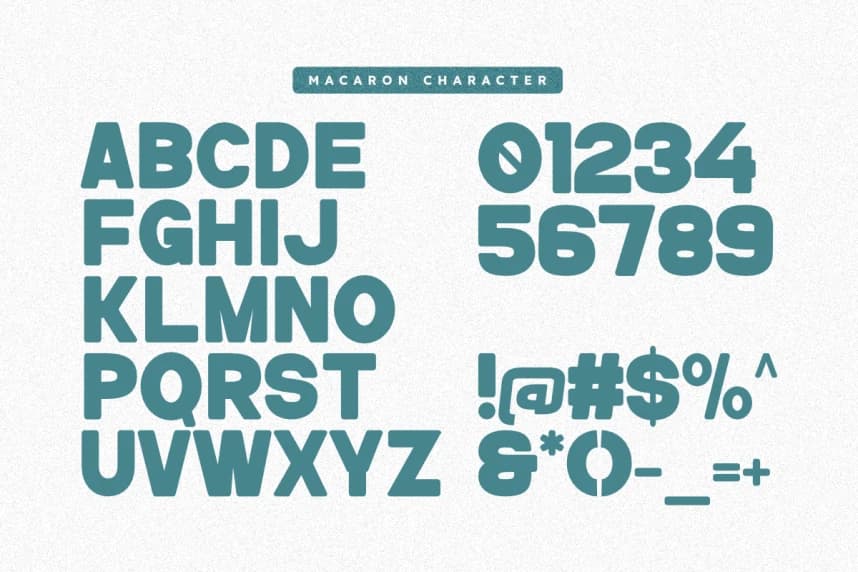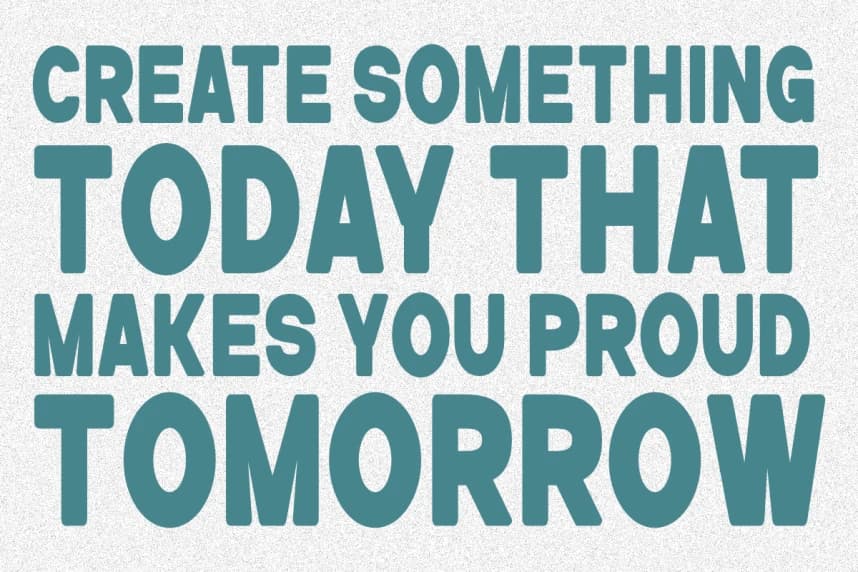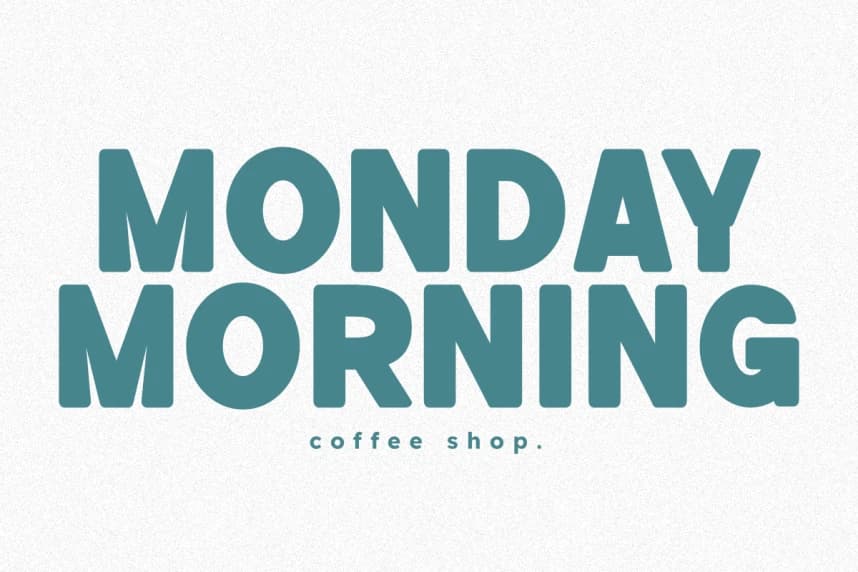
Macaron Font is a bold retro sans serif font meticulously designed to bring a playful warmth and eye-catching vintage aesthetic to your modern creative projects. Featuring a perfectly balanced heavy weight, solid geometric structural alignment